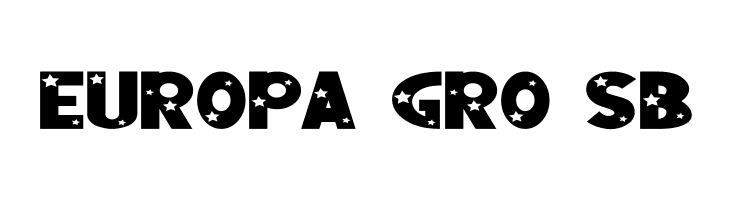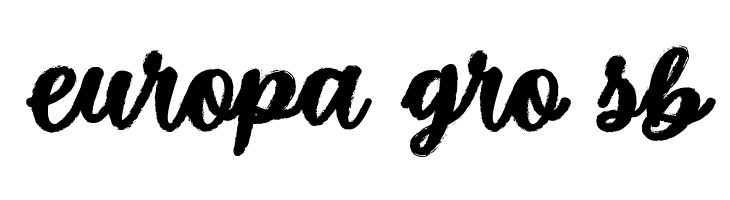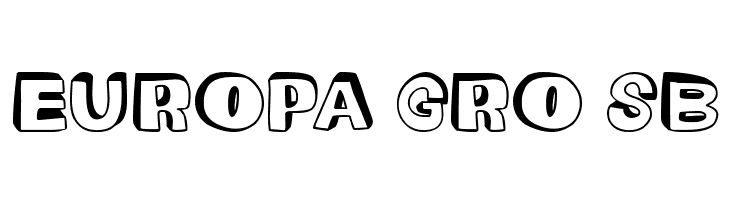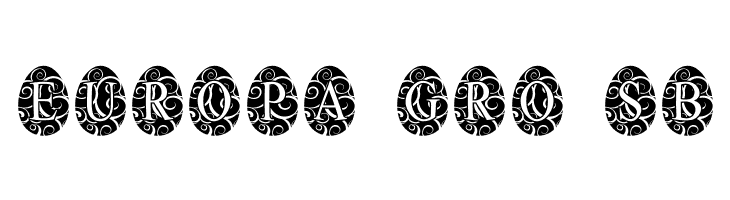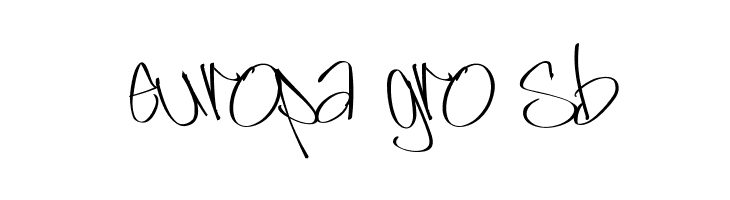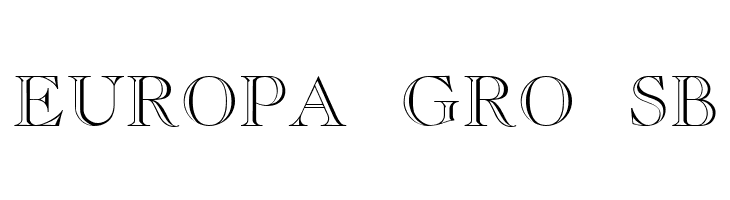
A bold, decorative font with star-shaped cutouts for a playful and eye-catching look.
A playful script font with a glittery texture and flowing, connected letters.
A festive, decorative font with star embellishments and Christmas symbols.
Bold, geometric font with rounded corners and uniform thickness.
A bold, playful font with a three-dimensional comic book style.
A bold, military-themed font with star cutouts in each character.
A whimsical, decorative font with characters encased in ornate egg shapes.
A lively, handwritten font with a modern, energetic style.
A festive serif font with snowflake embellishments, ideal for holiday themes.